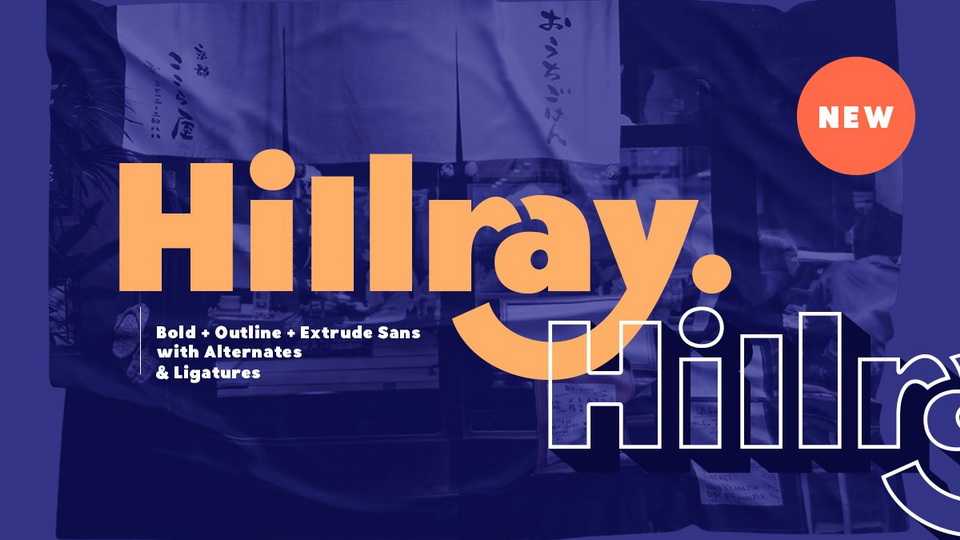
Download Hillray font, a stylish bold sans serif typeface with fancy ligatures. Hillray suitable to use for poster, branding, merchandise, and any street art style.